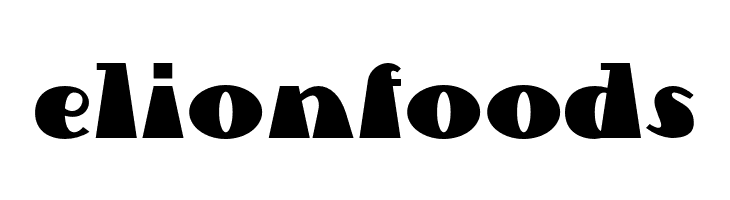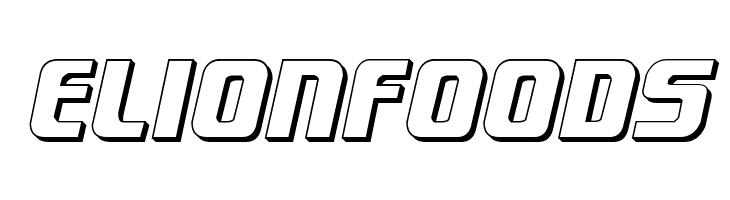
A bold, geometric font with sharp angles and a modern style.
A bold, dynamic font with angular strokes and a modern, energetic style.
A modern, cursive font with elegant, flowing lines and calligraphic influences.
A modern, geometric font with clean lines and a futuristic aesthetic.
A modern, geometric font with bold, rounded lines and a futuristic style.
A playful, handwritten-style font with rounded, consistent strokes.
A bold, geometric font with a modern, digital aesthetic.
A pixelated, retro-style font with a bold, geometric design.
A bold, 3D outlined font with a futuristic and dynamic style.